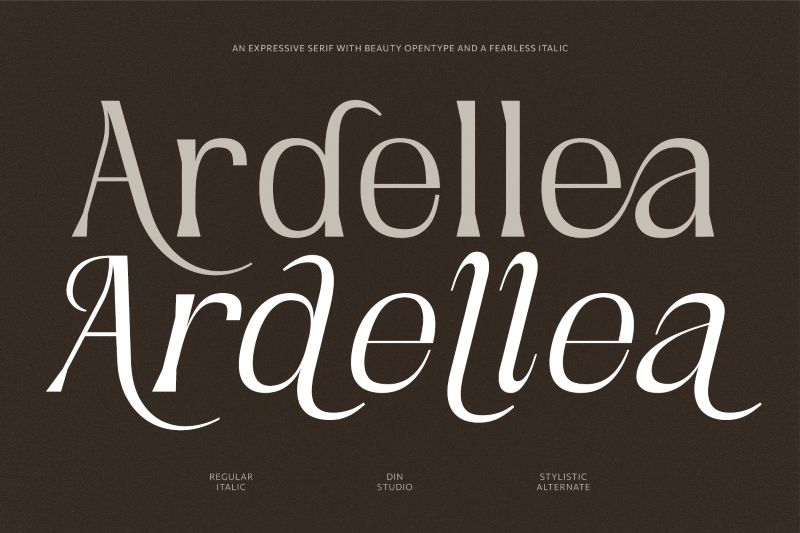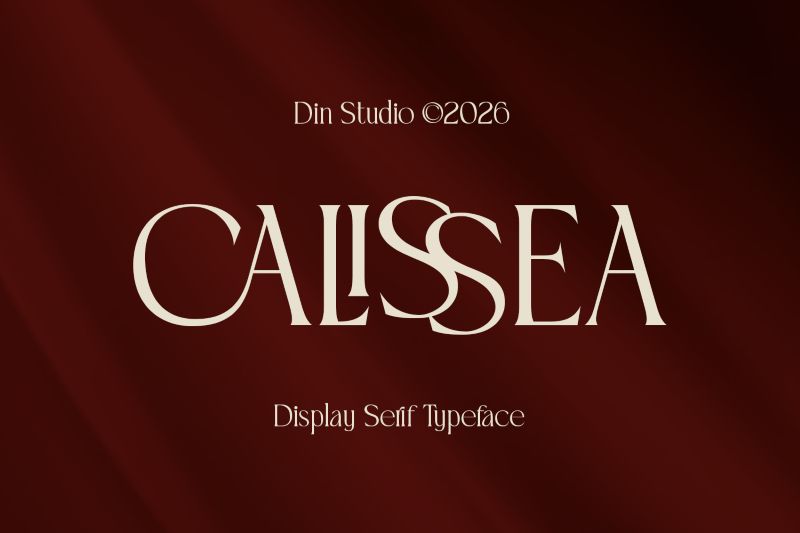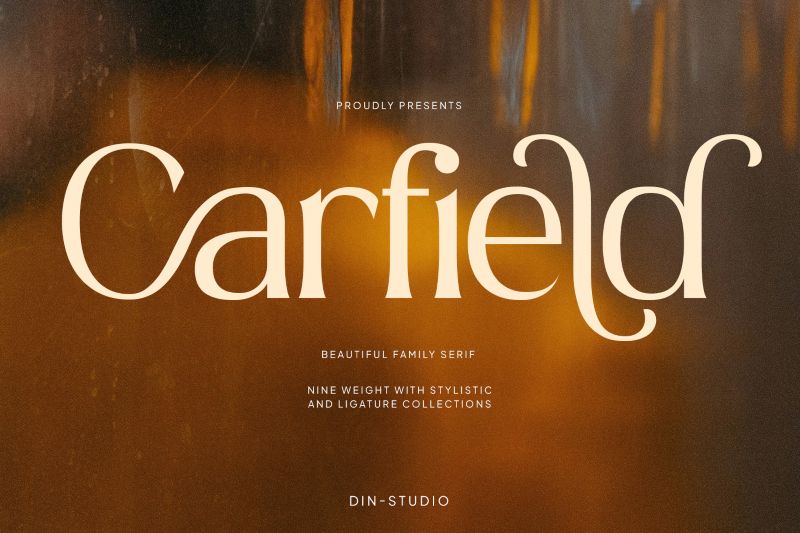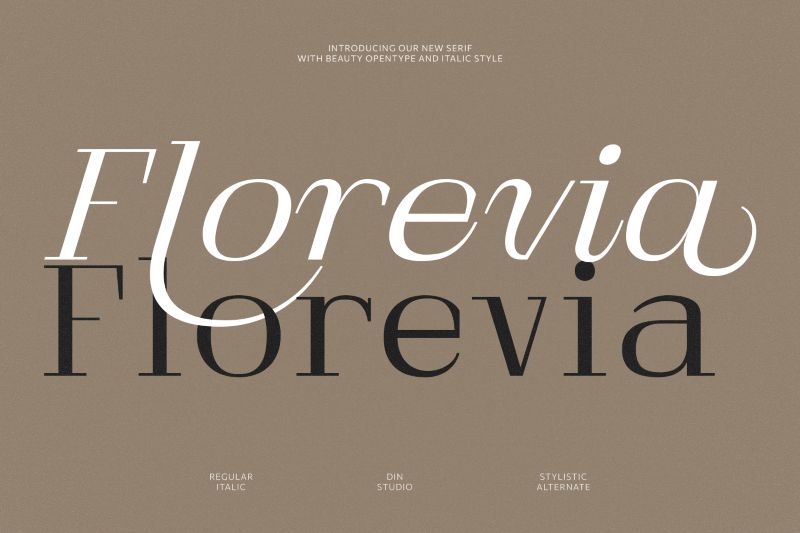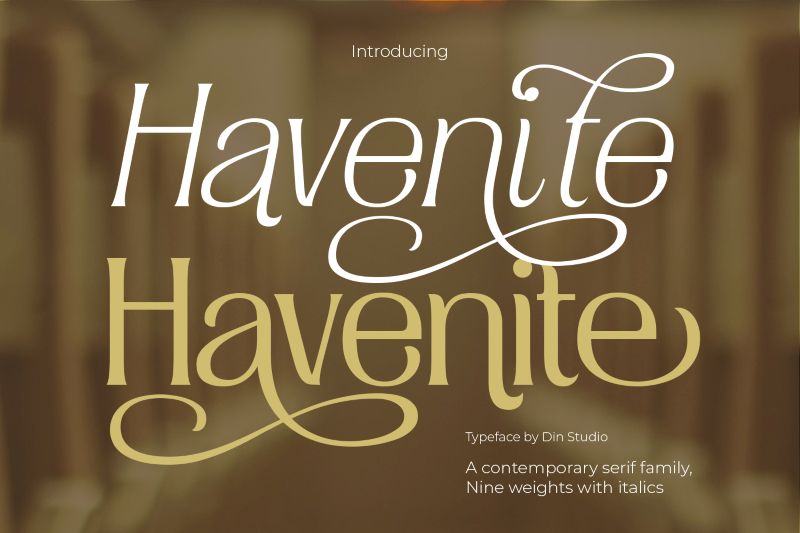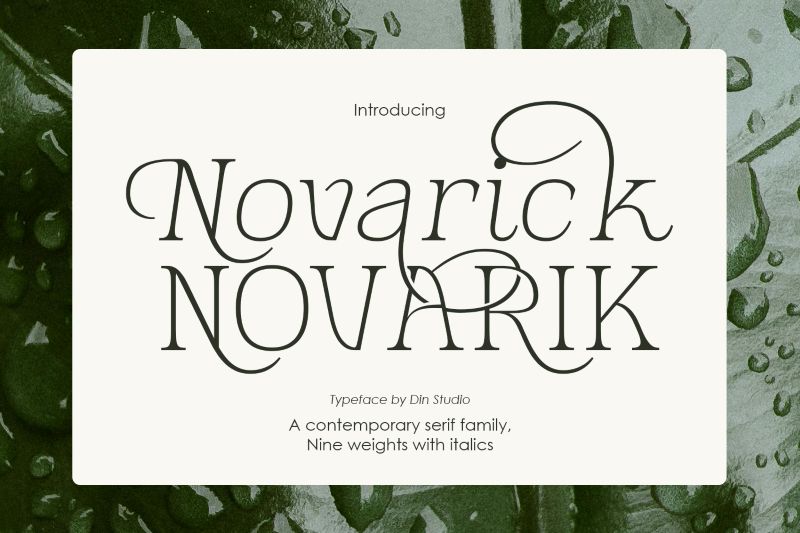
Modern Elegant Serif Font Ideas for a Classy and Timeless Look
Serif fonts always have their distinct appeal in the world of design because of their ability to evoke a classic, elegant, and professional impression. However, in this ever-changing modern design era, serifs no longer mean a formal or traditional look. Many serif fonts come with cleaner letterforms, neater proportions, and newer visuals relevant to today’s branding needs. One of the most popular fonts used by designers is a modern elegant serif font.
A modern elegant serif font combines the timeless sophistication of serif typography with contemporary design elements. This style often features smooth stroke contrasts, refined letterforms, and decorative details such as ligatures, swashes, and stylistic alternates. Thanks to its premium appearance, this type of font is ideal for a wide range of applications, including logos, fashion branding, beauty product packaging, and invitation designs.
Hence, in this article, we will dive into some modern elegant serif font recommendations that can make a design appear more luxurious, professional, and recognizable. Each font has unique characters, so you can pick the best one that suits your design needs.
Havenite—Contemporary Serif Font Family
Havernite is a modern elegant serif font with a contemporary character that is sophisticated, soft, and decorative at the same time. The letterform features a smooth stroke contrast, tall serif letters, and balanced letter proportion. Additionally, Havenite includes ligatures and stunning swashes, making the appearance look feminine and artistic.
As a font family, Havernite comes with 9 weights and matching italics, making it highly versatile for a wide range of design concepts. Whether you’re working on luxury branding, fashion logos, wedding invitations, or premium packaging, this font provides the flexibility and elegance needed to elevate the overall visual appeal.
Florevia—Elegant Serif Font
Florevia is a serif font with a graceful, smooth, and strong editorial impression. From its appearance, this font combines a classic serif with a clean, modern style. This combination results in a refined, fashionable, and premium design.
The most distinctive characteristic of this modern elegant serif font is its obvious stroke contrast between thick and thin lines, especially in the regular version. Meanwhile, the italic version appears more expressive with long, flowing curves, adding a feminine, stylish, and artistic nuance in a design.
Carfield—Beautiful Serif Font Family
This modern elegant serif font has a luxurious, smooth, and strong visual character. Carfield presents a soft stroke contrast, neat serifs, and decorative curves in some of its letters, making them all the more graceful and expressive.
The main appeal of Carfield lies in its ligature and stylistic set features; they evoke a sense of premium quality in this font without making it appear excessive. Even so, the letter proportion is clean and clear, perfect for various elegant, professional, and classy design needs.
Novarick—Contemporary Serif Font Family
Next, we have Novarik, a font that stands out with its luxurious, sophisticated swashes and stylistic sets. This is a modern, elegant serif font that has a thin and decorative contemporary character. The serifs are as smooth as its stroke contrast, making it perfect for luxury designs, beauty products, and editorial layouts.
Ardella—Elegant Serif Font
Ardella has an elegant, expressive, and slightly assertive serif character. With a tall and slender letter structure, combined with a clear stroke contrast, this modern elegant serif font is graceful without appearing excessive. In some characters, especially capital letters and the italic version, there are long curves that add an extra decorative touch without compromising their elegant impression.
Sevenity—Display Serif Font
Seventy is an incredible font with a modern, minimalist, and elegant serif character. The letterform is tall with a clear stroke contrast, adding an elegant touch without having to be too decorative. Unlike other modern elegant serif font styles, Sevenity does not use many decorative swashes. It stands out through the neat letterforms that add a calm yet elegant visual impression.
Naivelist—Display Serif Font
With a decorative serif character, Naivelist appears elegant with distinctive classic nuance. Navelist has a unique ornamental detail in its uppercase letters, adding a luxurious and artistic vibe. With the expressive character, this font is perfect for premium designs seeking to appear romantic and slightly vintage.
Calissea—Display Serif Font
Calissea presents strong, bold, and luxurious letterforms in each of its strokes. This modern elegant serif font has a neat letter structure that makes it all the more dominant, premium, and classy. Complete with ligatures, this font feels even more exclusive and has a strong visual identity.